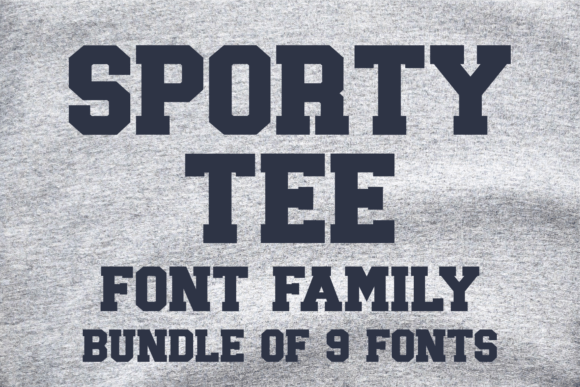
Download Sporty Tee Family Font for free! Created by SVG Cuttables and published by Quinn McNamara, this serif font family is perfect for adding a unique touch to your designs.